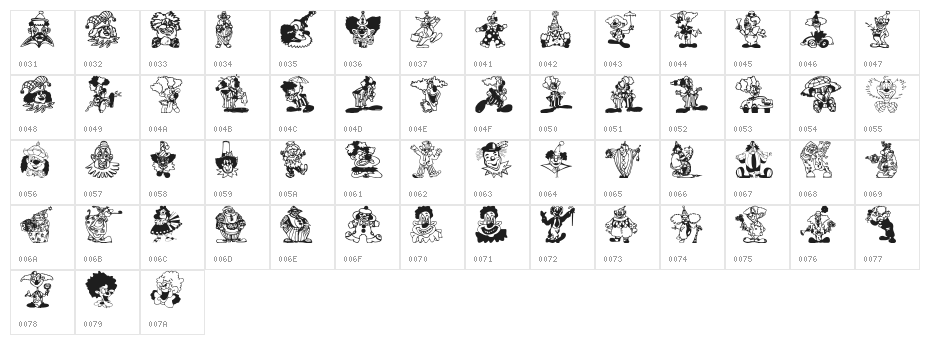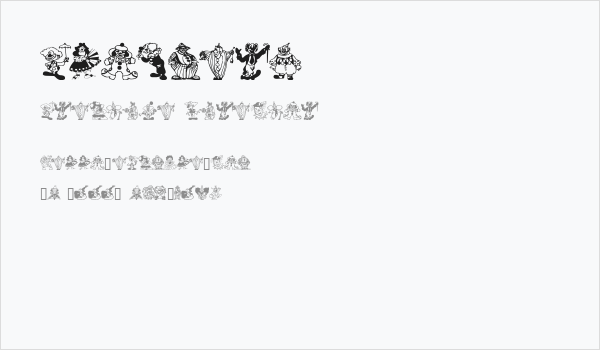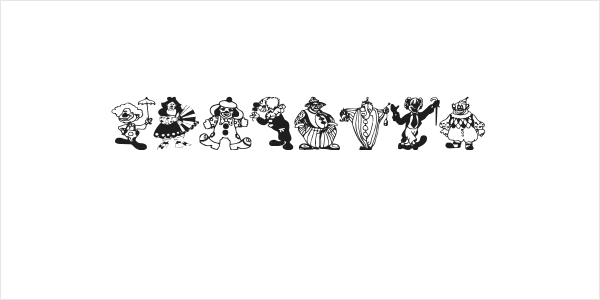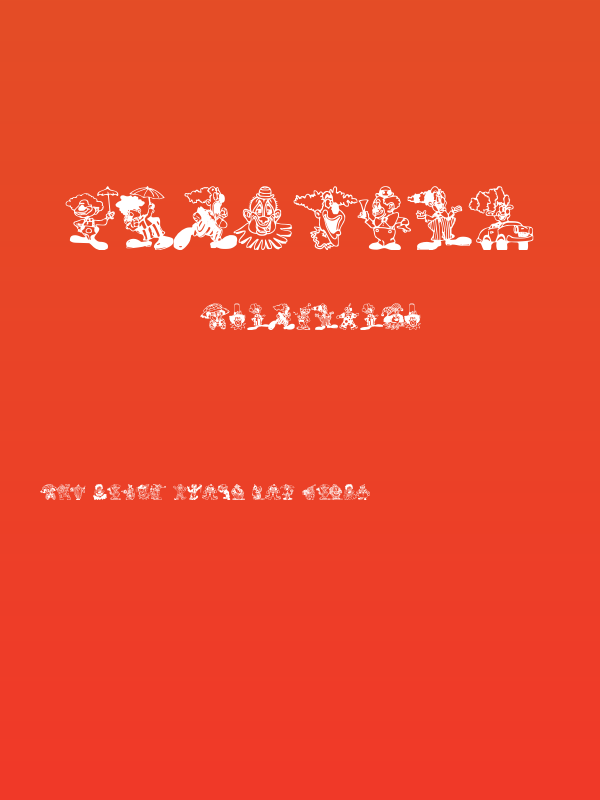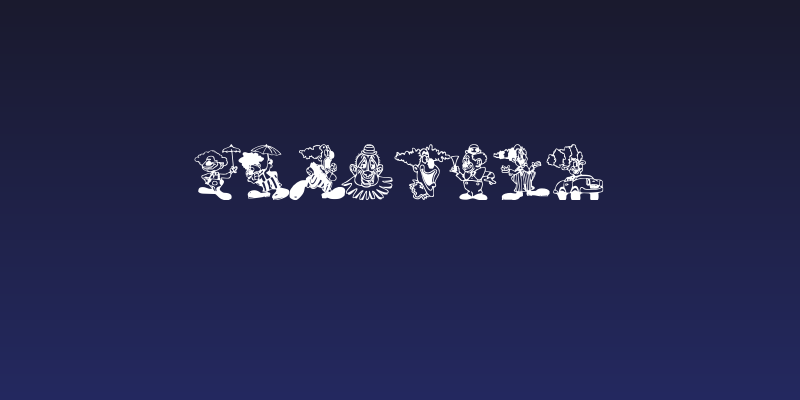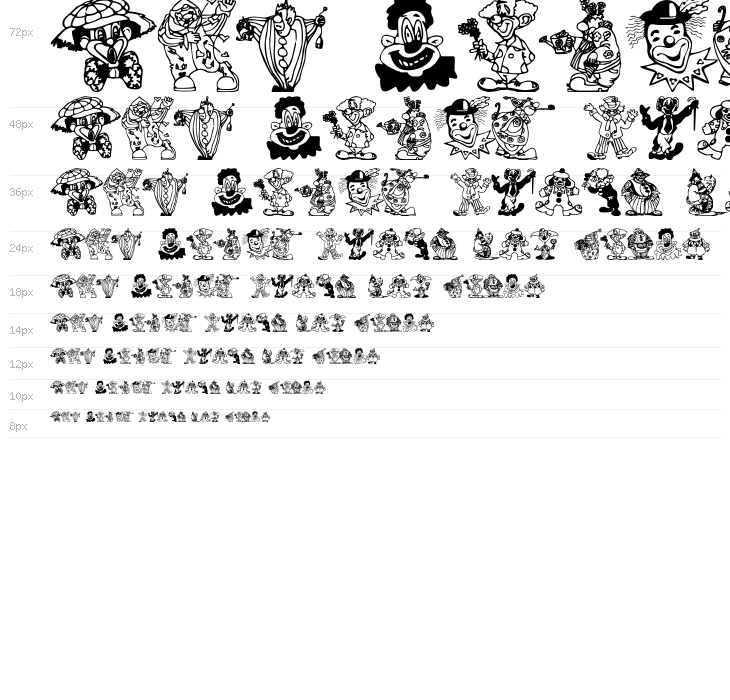
Clowners Font
Clowners Description
A highly decorative and playful font composed of detailed clown illustrations for each character, featuring whimsical and exaggerated expressions and costumes. The glyphs are unique, cartoonish, and visually busy, making each letter or symbol a distinct clown figure.
| Overall Style | Decorative, Playful, Whimsical |
| Use Case | Logos, Headlines, Posters, Themed Events |
| Proposed Projects | ChildrenΓ’β¬β’s party invitations, circus-themed posters, playful branding, novelty event flyers, and entertainment-related graphics. |